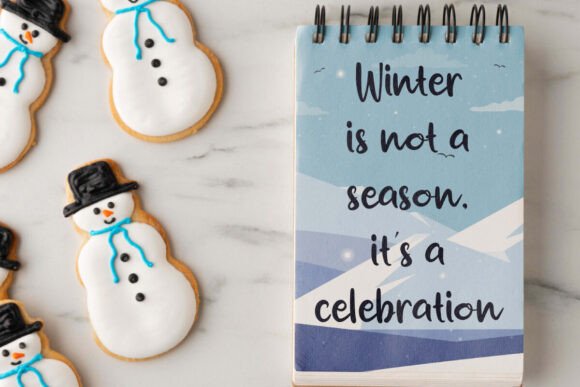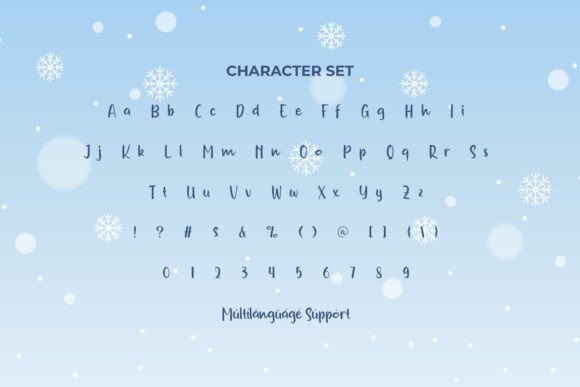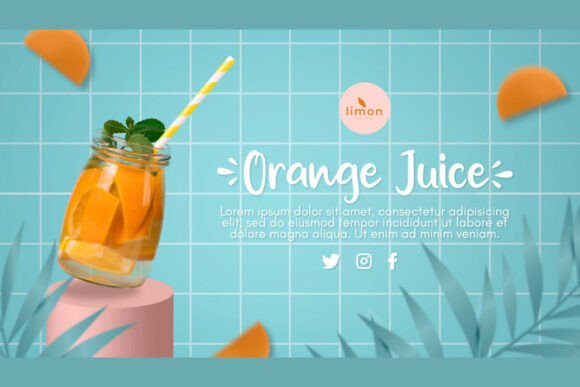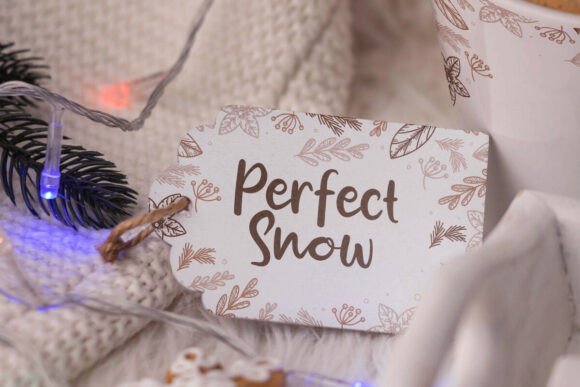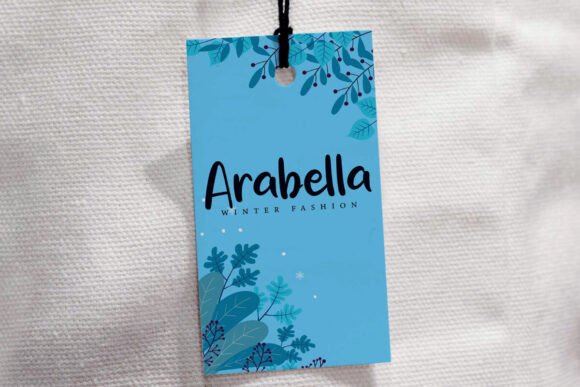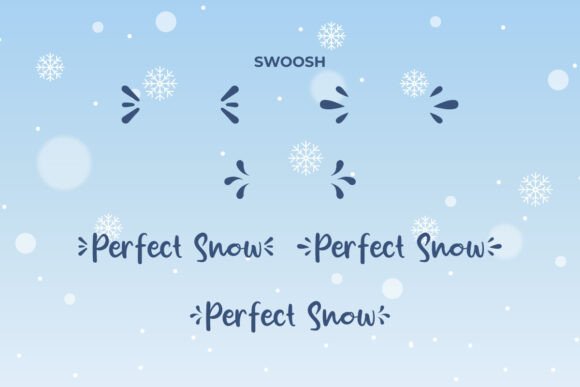
Introduction to Perfect Snow Font
Perfect Snow Font is an adorable display font with casual handwriting style.
This font can add a sweet touch to any design you make and make it look natural It will be good for any designs, such as calendar, brand image, cover, custom design, greeting card, invitation, label, poster, product packaging, quote, web, and more.
Key Features of Perfect Snow Font
Why Choose Perfect Snow Font?
Perfect Snow Font offers exceptional quality and versatility, making it a valuable addition to your design toolkit. Whether you’re creating for personal projects or commercial use, Perfect Snow Font delivers professional results.